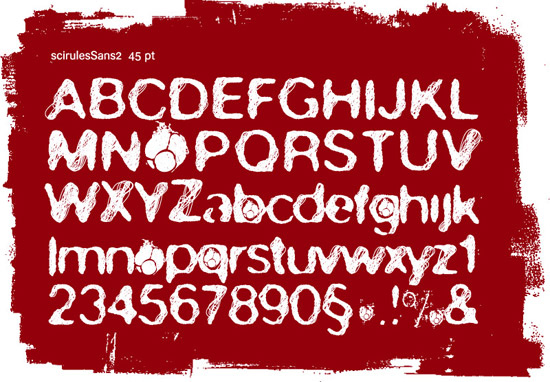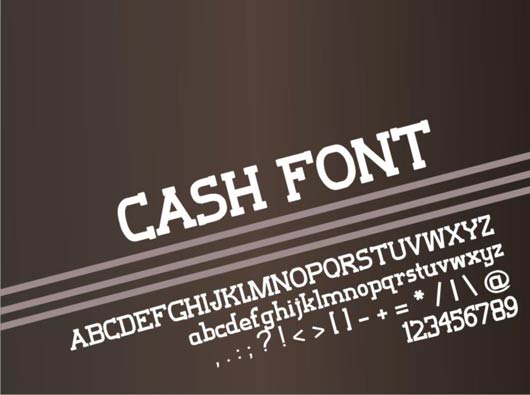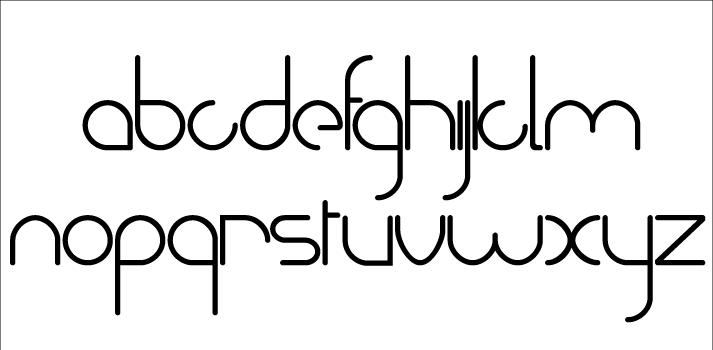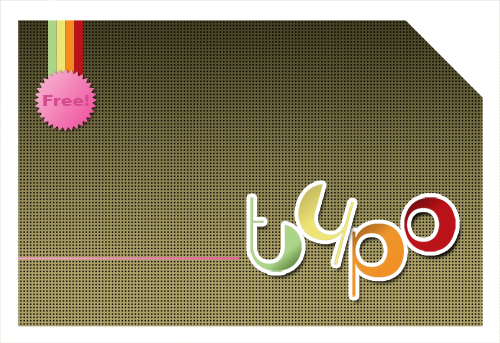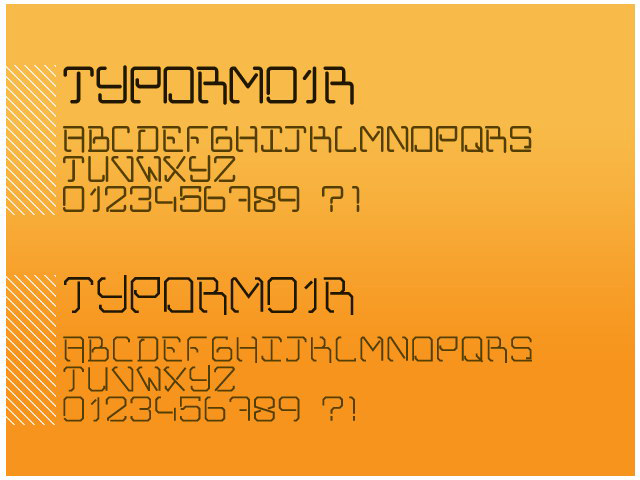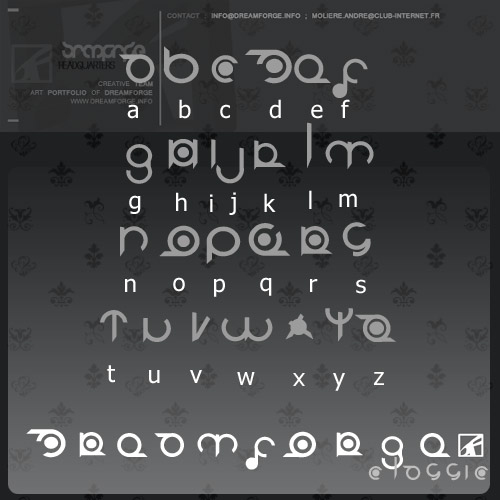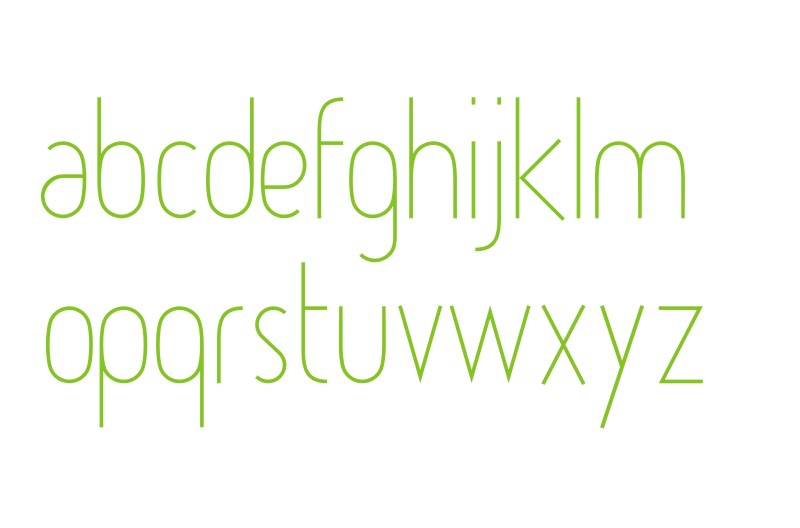
Way Cool Free Fonts to Download
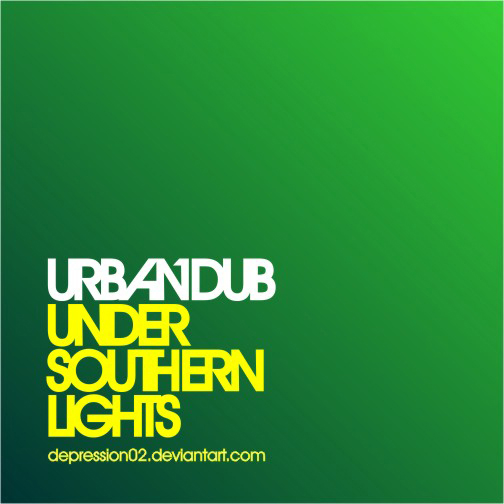
AvantGarde ALT by depression02
Yes, believe it !! a free collection of wonderful fonts and typography is here. While I was looking for good fonts. I found these wonderful fonts on Deviant Arts. The big advantage in these fonts beside it is free, that it is unique and differ in type and shape to suite all your needs and design styles.
Mesomorph font
Mesomorph font  by ritasaad
Skirules sans
skirules sans2 ttf download by protofonts
Cash Font
Cash Font by despicablehero
Squair font
squair font by doritozdoss
AvantGarde ALT
AvantGarde ALT by depression02
Stark Tech
Stark Tech by Deep Brown
Font bola
Font bola by thusi
TYPORM01 Round ans Square
TYPORM01 Round ans Square by RGSONE
Dreamforge classic
dreamforge classic by DREAM forge
Atype
Atype   variation 5   W I P  by ficod